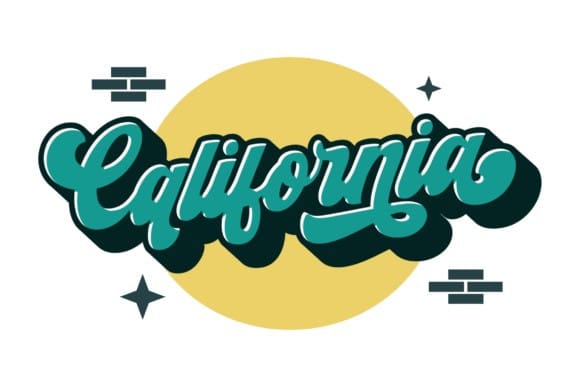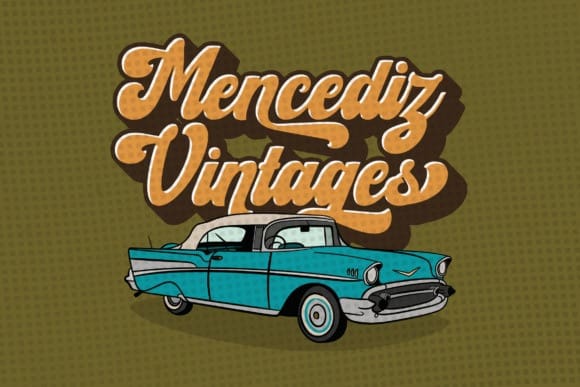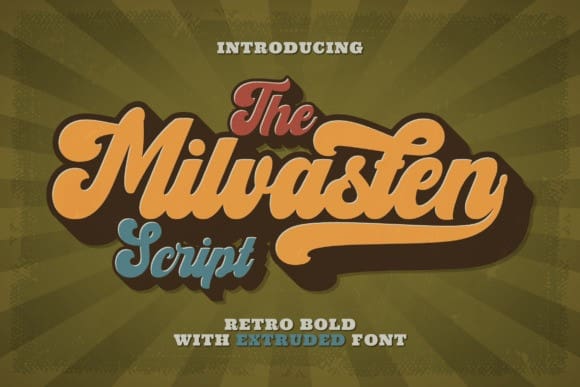
Milvasten Retro Font
Milvasten Retro Font is a fun, retro-style script display font that is ready to take your designs to the next level. Add it to your vintage-inspired posters, stickers, apparel, or social media posts and you will definitely impress your audience.